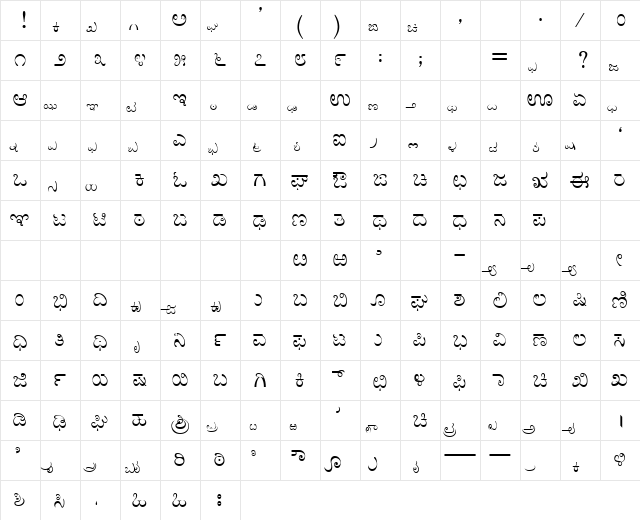
AkrutiKndUdaya Normal
Design Context for AkrutiKndUdaya Typeface
AkrutiKndUdaya is a composed and adaptable typeface that performs quietly and consistently across a wide range of design contexts.